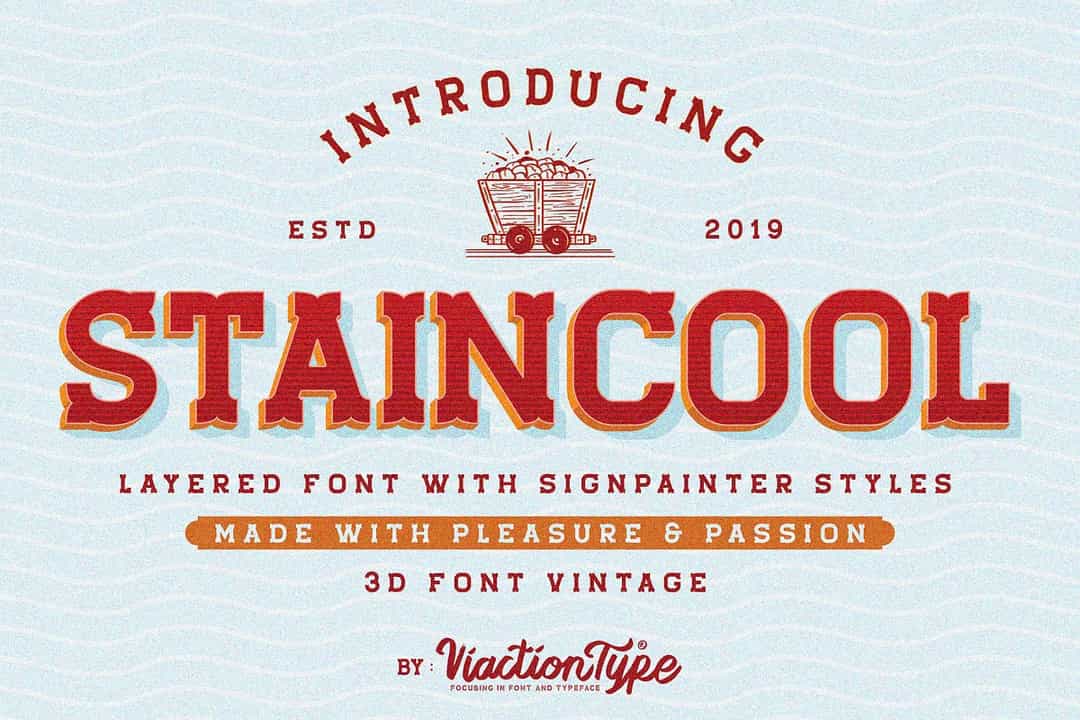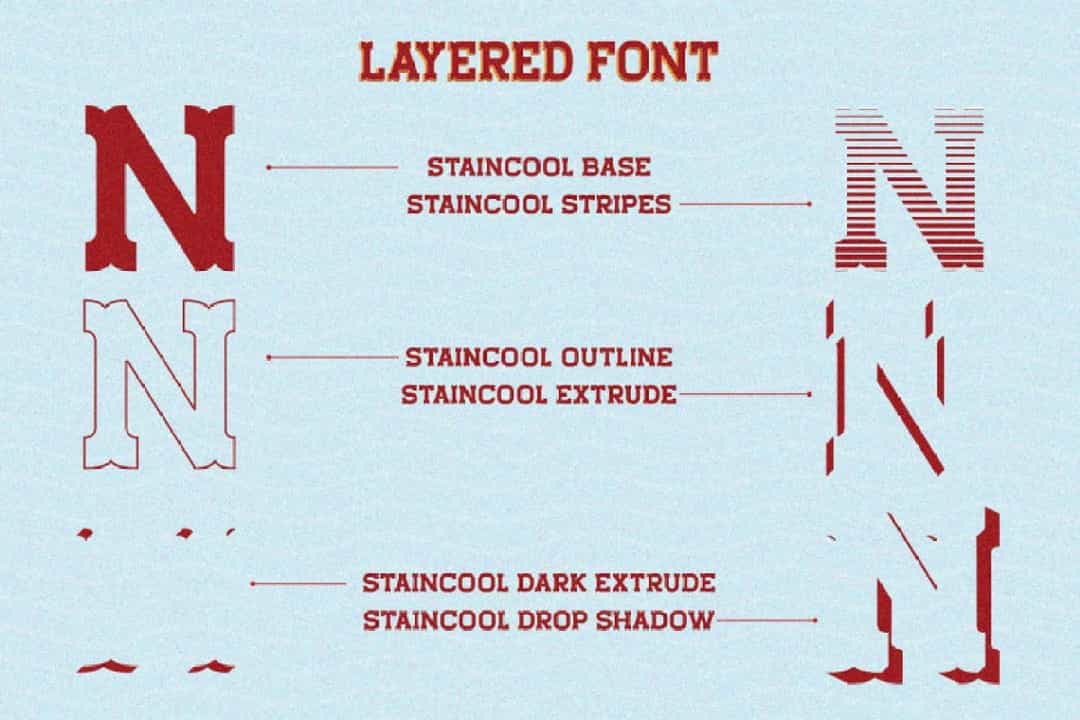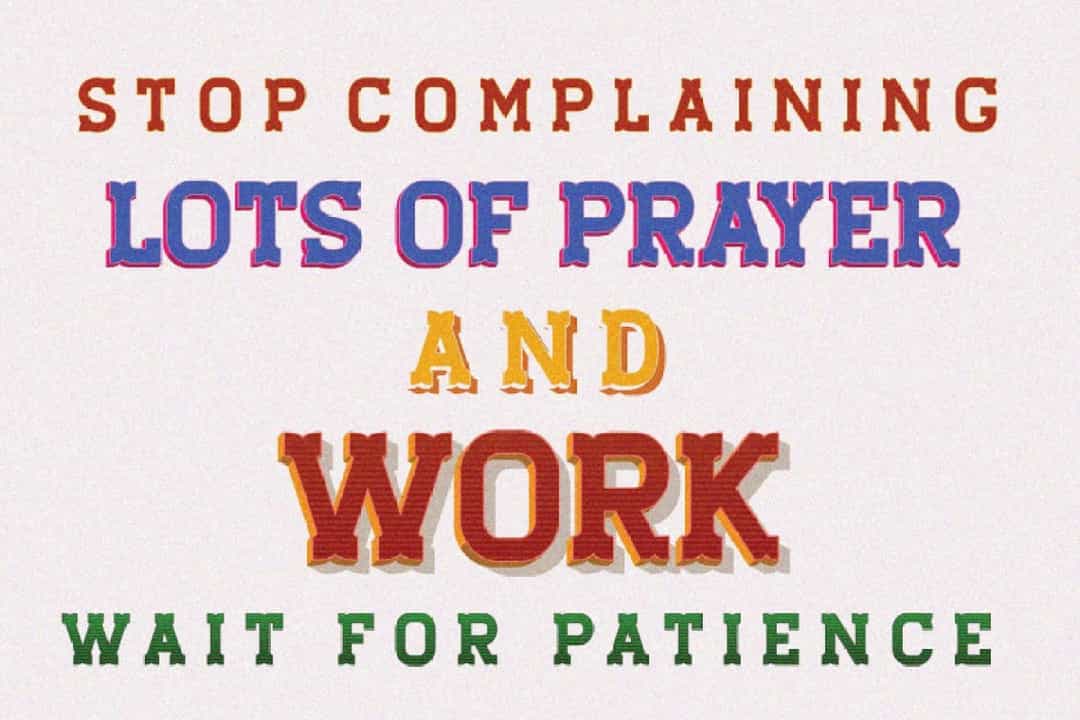
Staincool Base Font
The Staincool Font for Display comes up with an vintage appearance. The font has been designed keeping in mind Charles Rennie Mackintosh’s painting style and has six easily usable layers for packaging labels merchandise logotypes signs and more.